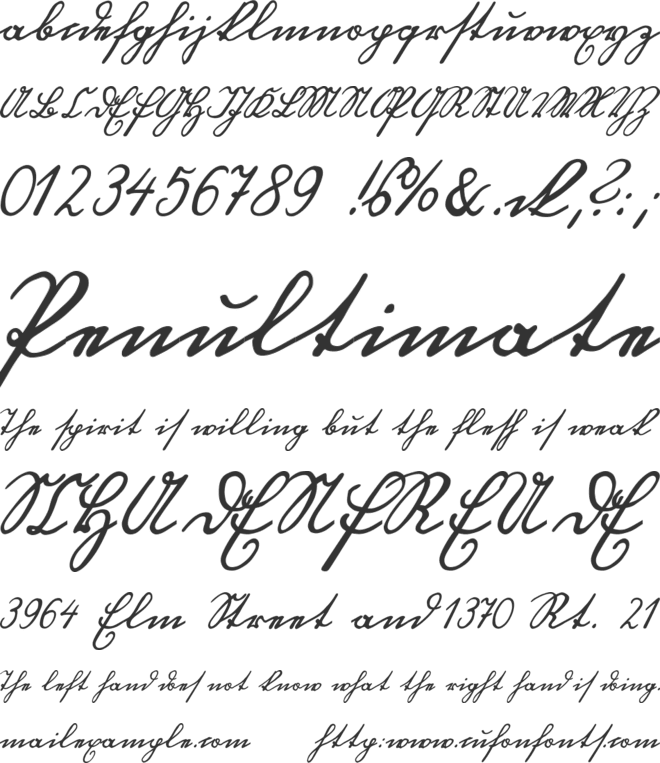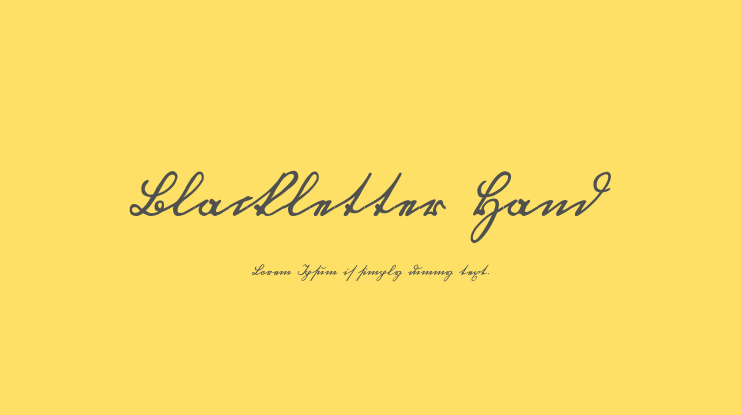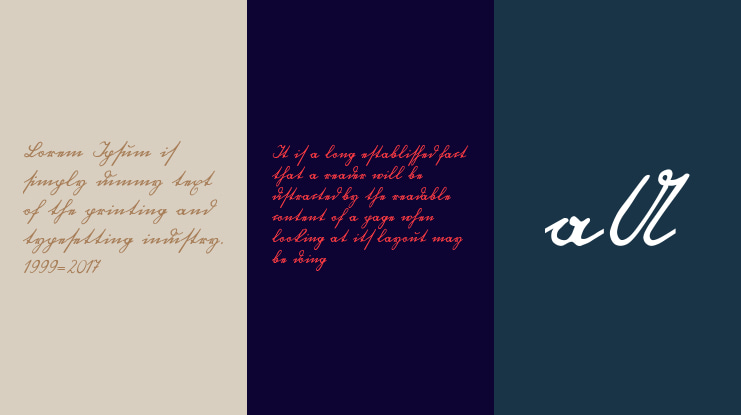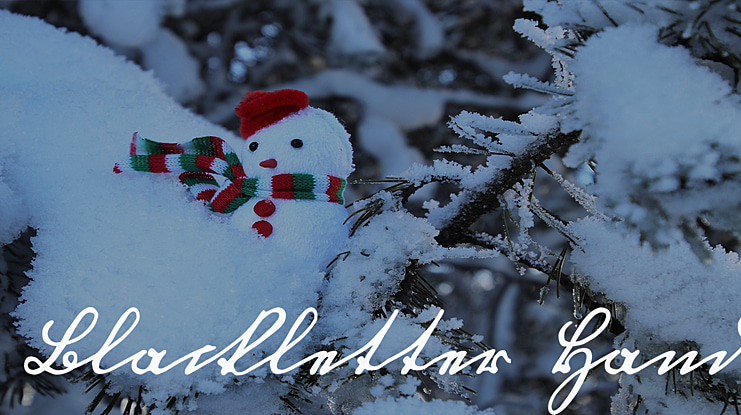
A classic Germanic blackletter hand. NOTE: this is not the Nazi-era Suetterlin. Blackletter hand is slanted and written with a pen; Suetterlin, a subtype of blackletter hand, is always written precisely vertically, and either with a biro (ballpoint "pen") or with a pen mimicking a biro.
Blackletter hand is much older than Suetterlin---this is German imperial era. Roman-style hand was used as italics are used today, that is, in lieu of quote marks.
The "round" or terminal lowercase "s" is on the # key. Long "s" is used otherwise.